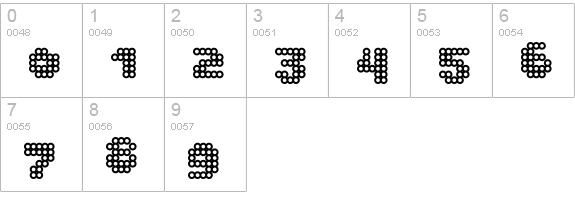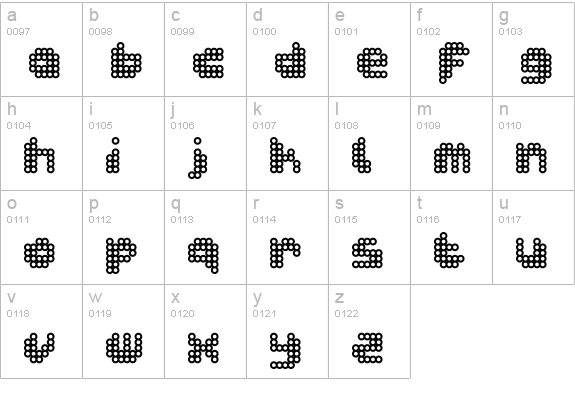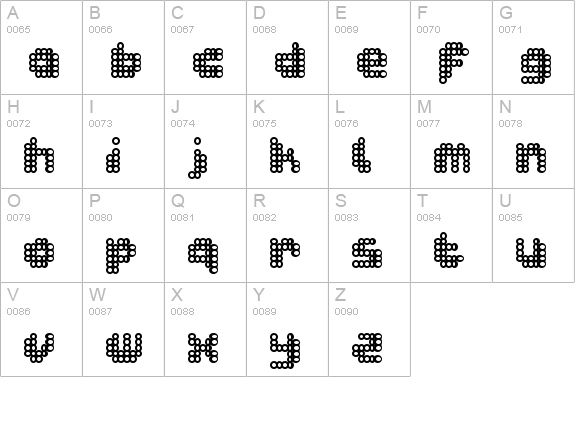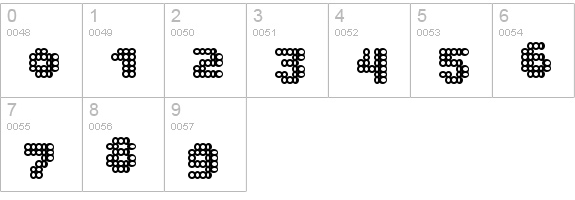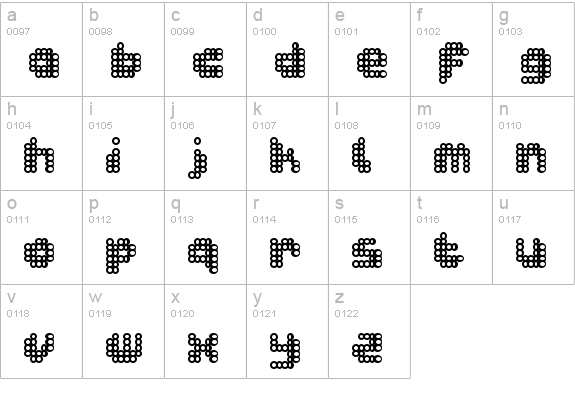
dottozucchero Font Details
Dottozucchero is a charming and whimsical font that exudes a sense of playfulness and creativity. With its rounded edges and smooth curves, this font is perfect for adding a touch of fun to any design project. Whether you're creating invitations, posters, or social media graphics, Dottozucchero is sure to make a statement. What sets Dottozucchero apart is that it is not only visually appealing, but also free to download. You can easily access this delightful font at FontsMarket.com, where you can unleash your creativity without any cost. Embrace the joy and versatility of Dottozucchero and bring your designs to life with this unique and captivating typeface.